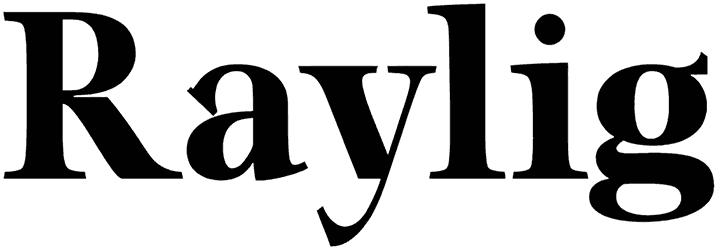
Raylig Font
If you are running after a classical and versatile item that can be used for any design, this one can be what you need. As a serif font with a unique face, Raylig will provide an ageless and general style for your creati…
If you are running after a classical and versatile item that can be used for any design, this one can be what you need. As a serif font with a unique face, Raylig will provide an ageless and general style for your creative project. Place Raylig on your coming designs, from logotypes to social media posts, and show off your creativity.